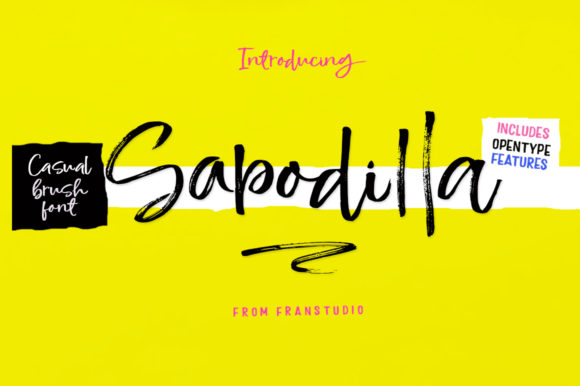
Behold Sapodilla, a font whose grace and charm will captivate your heart. This captivating script, born from the harmonious union of a brush pen and pencil, exudes an authenticity that will make your creations shine.
Immerse yourself in the allure of Sapodilla, a font that invites you to unleash your creativity. Its meticulously crafted strokes dance across the page, evoking a sense of nostalgia and wonder. Each letter is a testament to the artistry of its creator, Franstudio, capturing the essence of handwritten beauty in digital form.
With Sapodilla, you can transform ordinary words into extraordinary expressions. Its versatility knows no bounds, lending itself to a myriad of projects. Whether you're crafting captivating social media posts, designing eye-catching logos, or personalizing heartfelt letters, Sapodilla will add a touch of magic to every endeavor.
Embrace the power of Sapodilla to elevate your designs. Let its enchanting curves guide your imagination, as you create masterpieces that speak volumes. Its political poster-inspired aesthetic empowers you to make bold statements, capturing the attention of all who behold it.
Step into the world of Sapodilla, where handwritten elegance meets digital brilliance. Its ease of use and endless possibilities will ignite your creativity and inspire you to reach new heights.